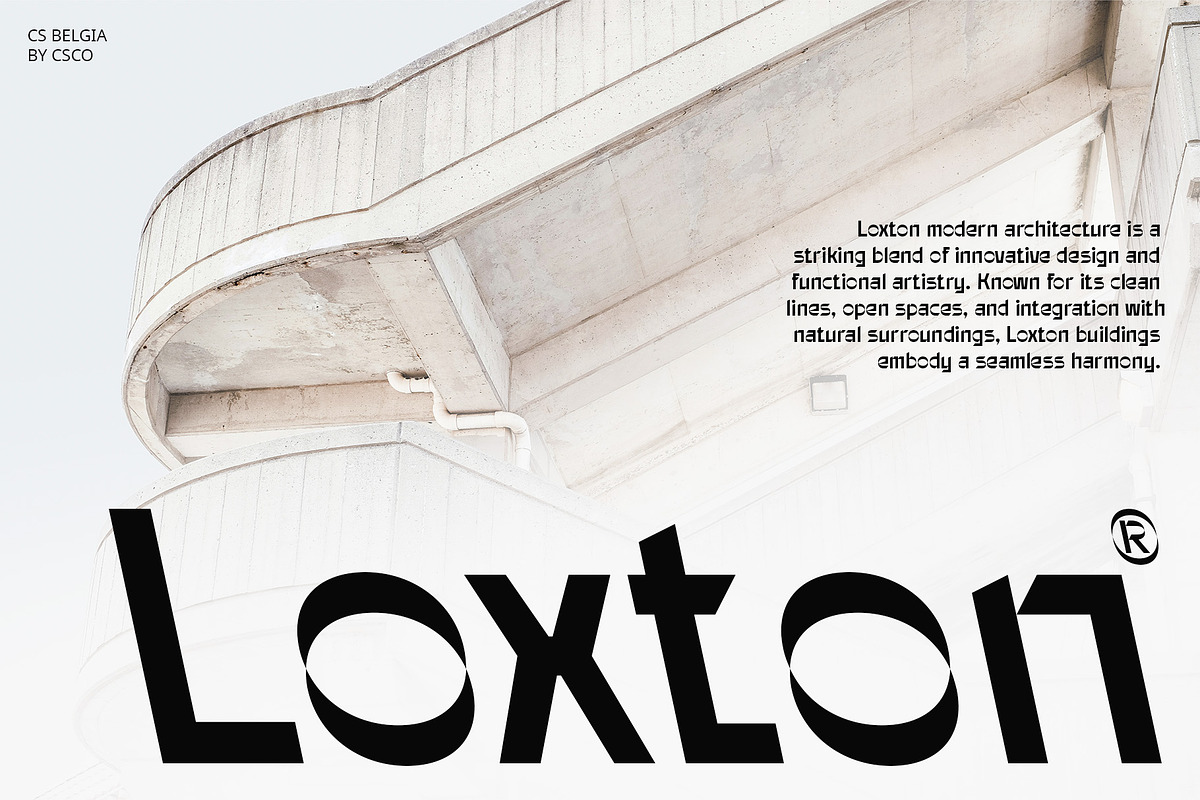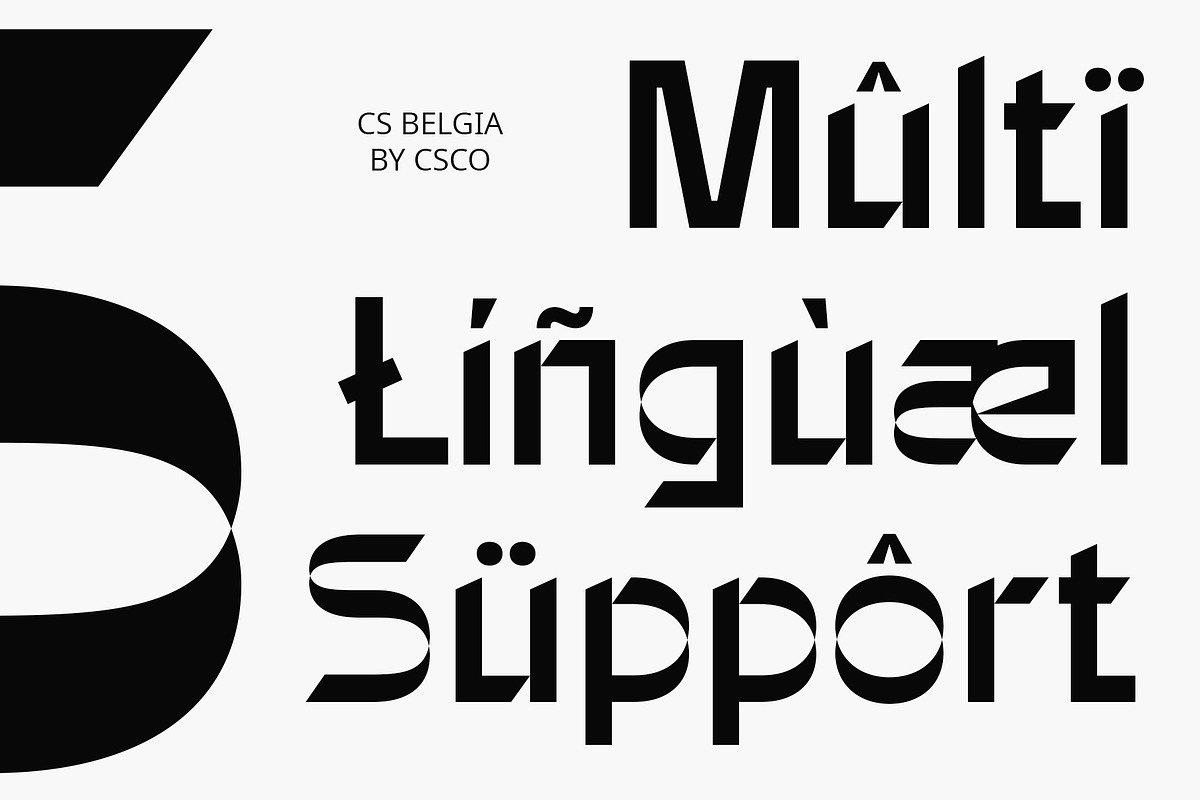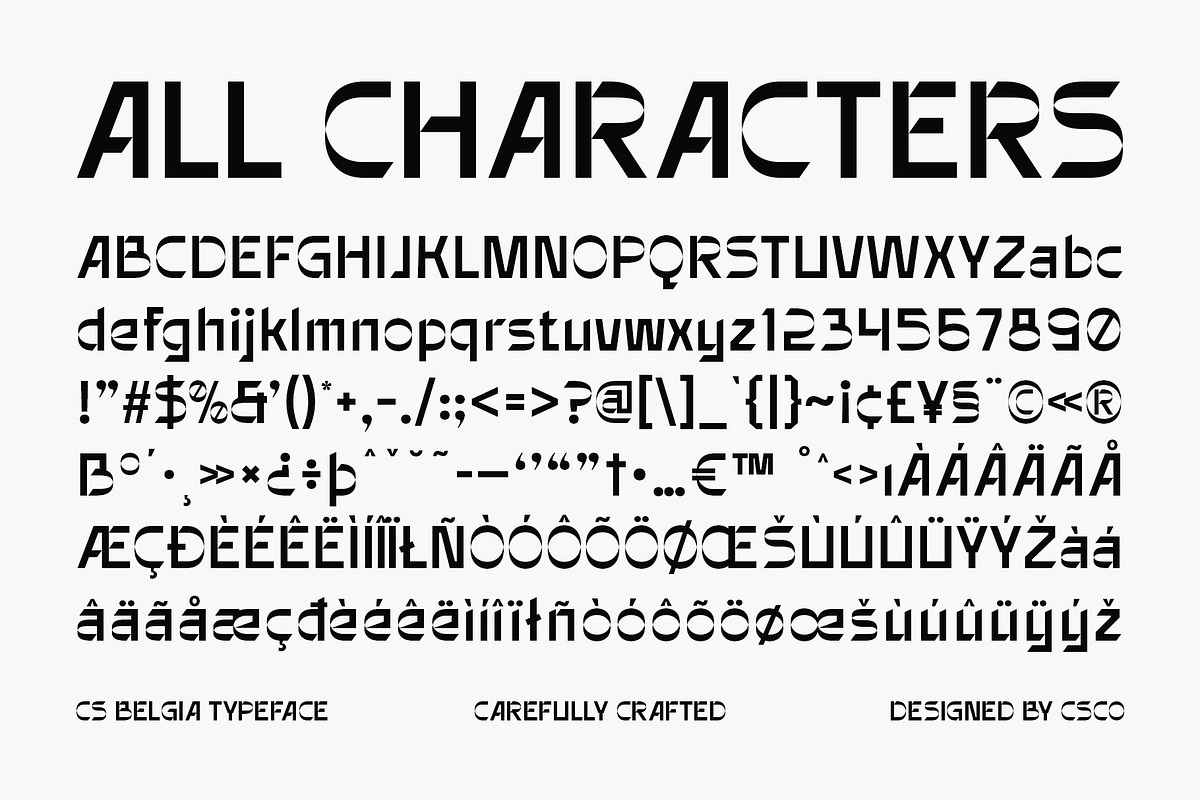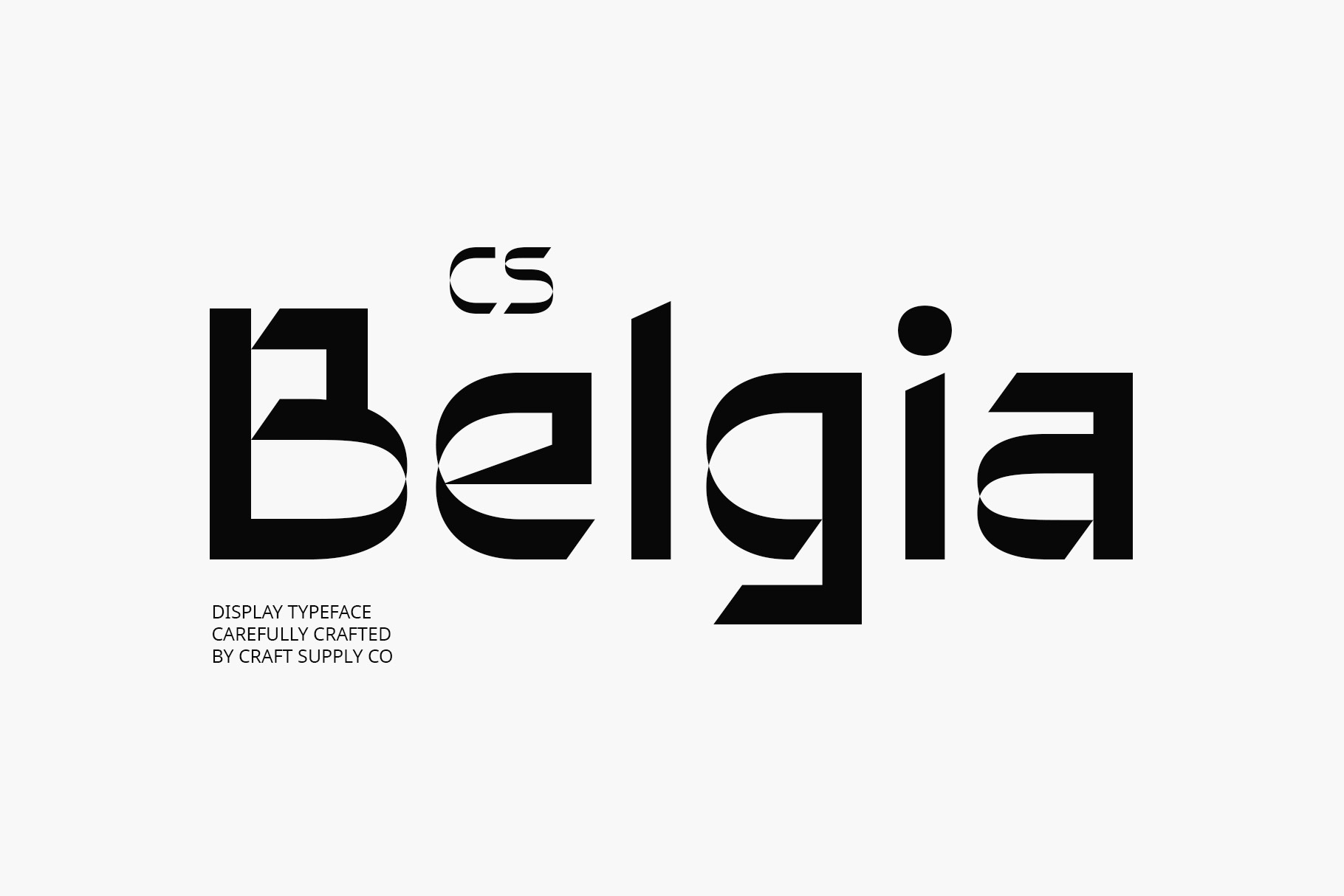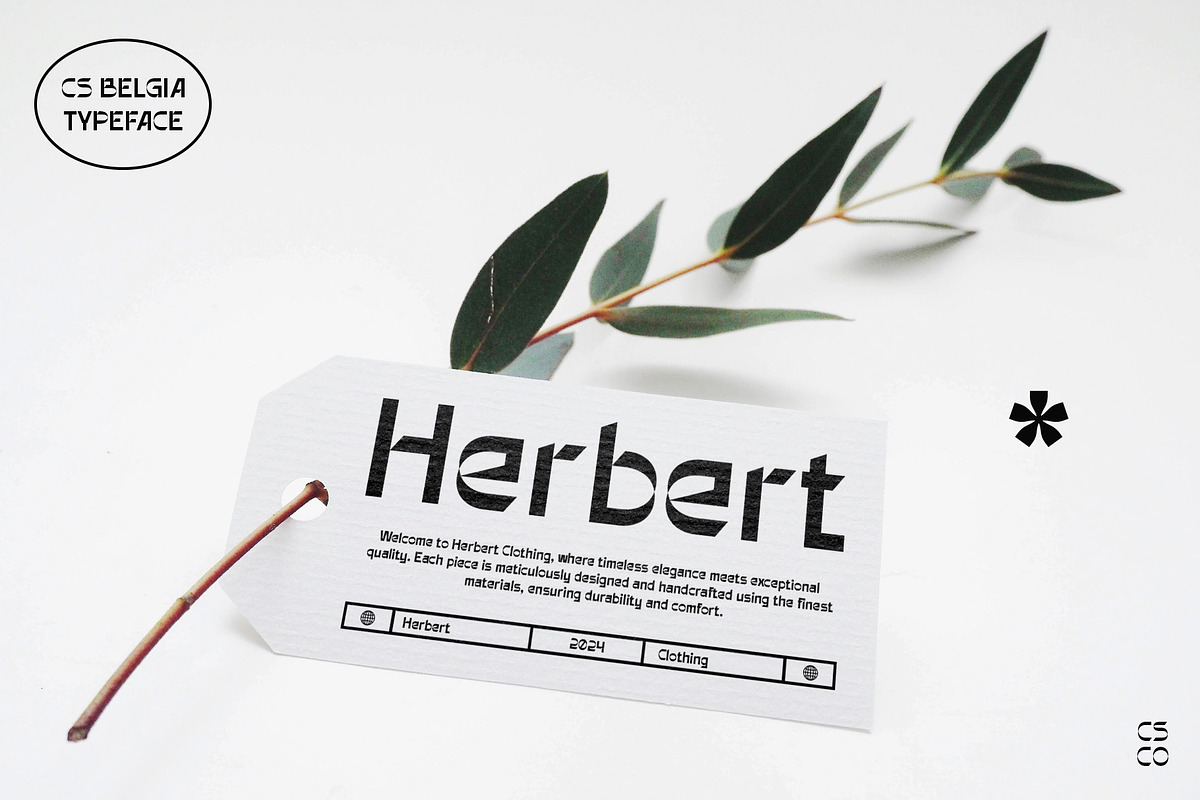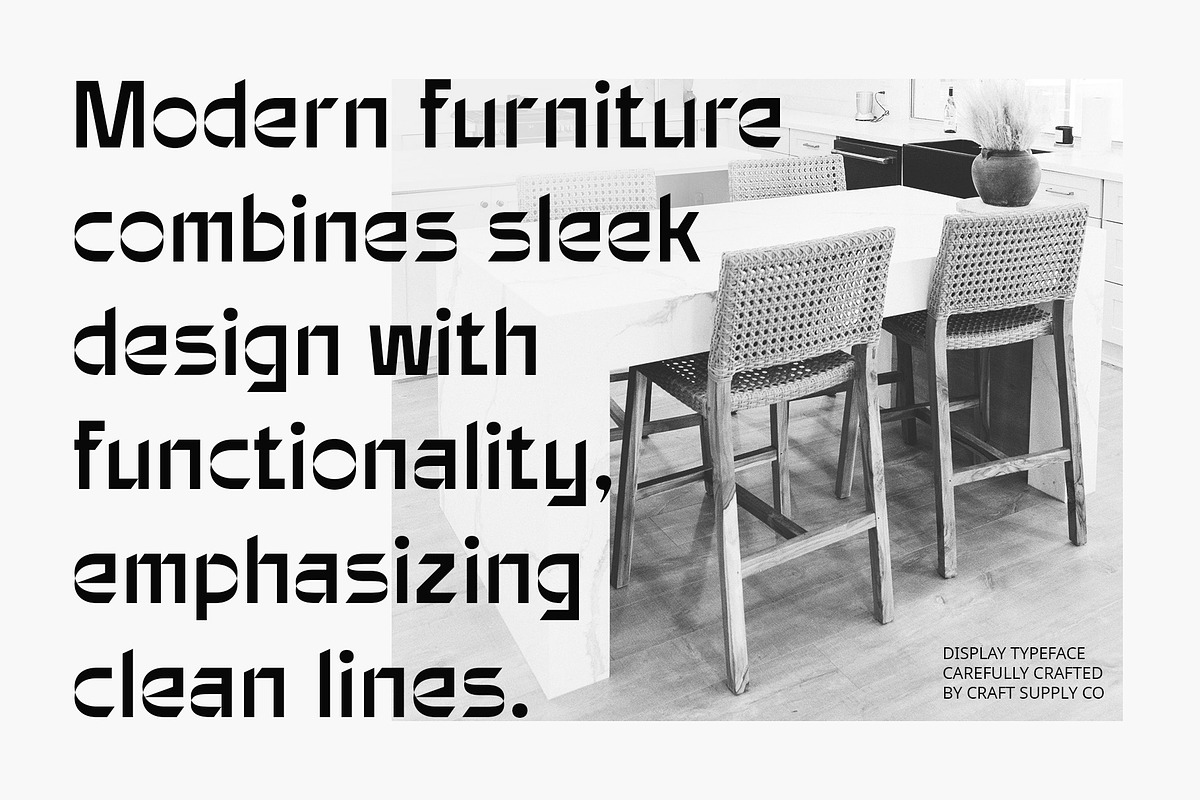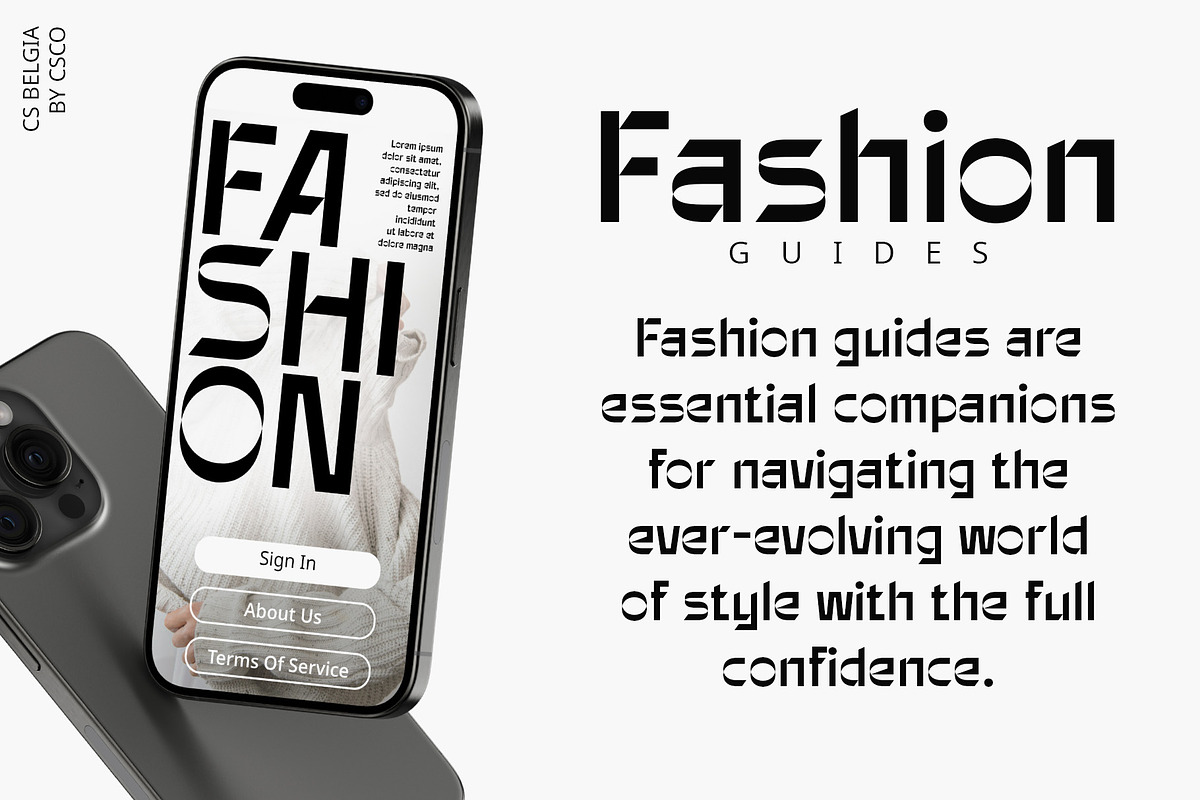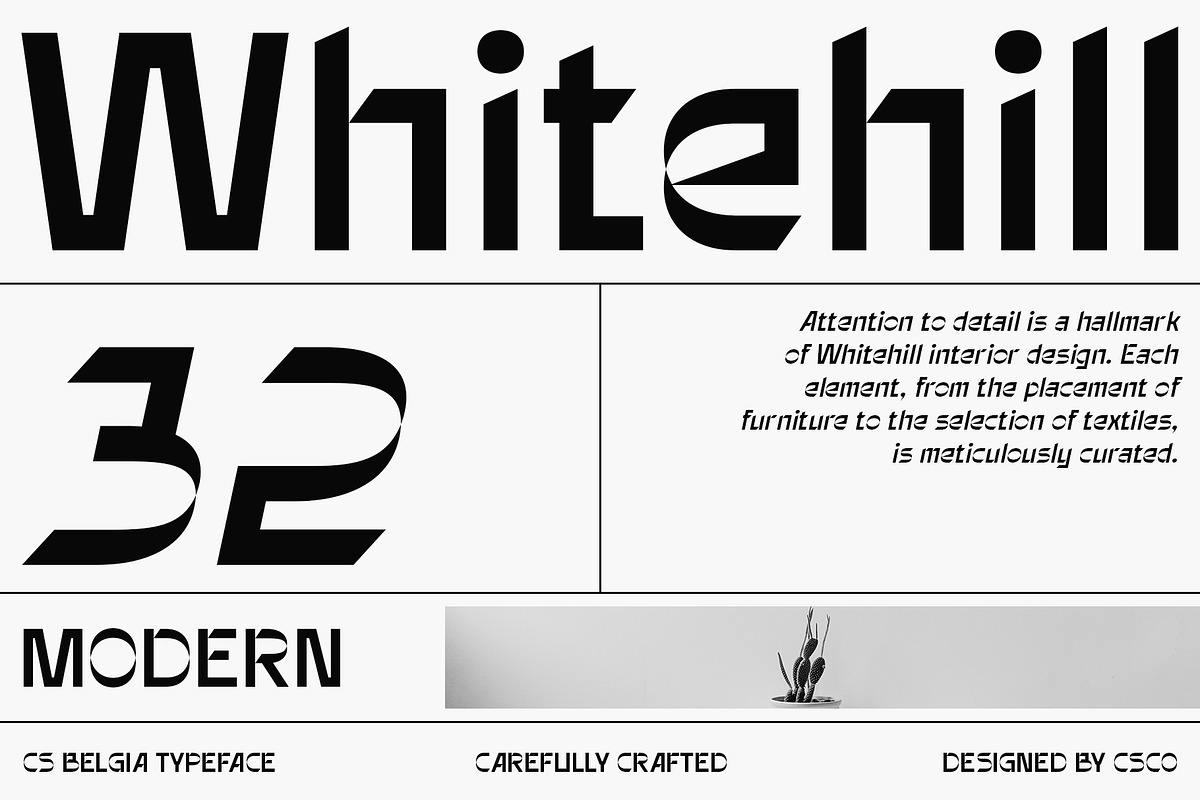
CS Belgia – Display Typeface
CS Belgia – Display Typeface: Modern Clarity for Professional Designs
Clean and Modern Display Typeface CS Belgia is a contemporary display font that excels in delivering a professional and clean impression. Featuring sleek and modern letterforms, this font is versatile for a wide range of design applications, including branding, editorial design such as magazines and books, web design, visual promotions like posters and brochures, and product packaging.
Versatile Design Application With its clear and readable appearance, CS Belgia is particularly well-suited for data visualization and infographics, enhancing the clarity and impact of information presentation. Whether used to establish a cohesive visual identity across diverse creative projects or to emphasize clarity in complex visualizations, this font ensures a strong and professional presence.
Perfect for Modern Visual Communication CS Belgia’s clean lines and contemporary design make it a reliable choice for modern visual communication needs. Its ability to blend seamlessly into various design contexts while maintaining readability and professionalism makes it an indispensable tool for designers seeking to make a bold statement with clarity and style.